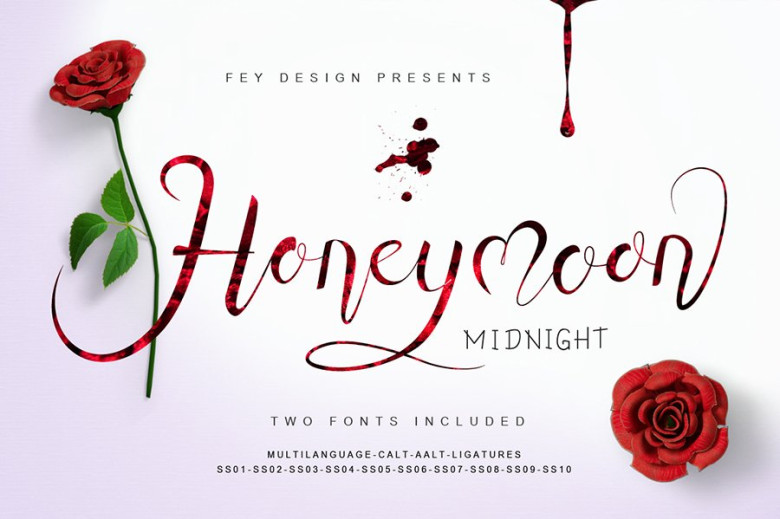
Honey Moon Midnight Font
Honey Moon Midnight font is a modern hand-lettered calligraphy with dancing characters and irregular baseline. Suitable for design, element design, wedding, event, t-shirt, logo, badges, sticker, and awesome work, etc.